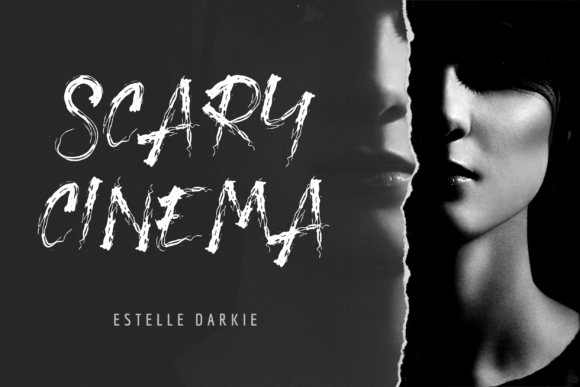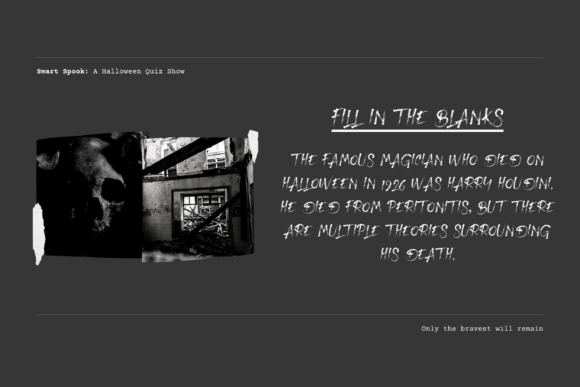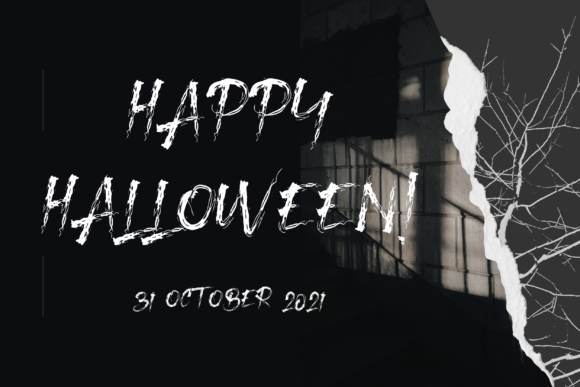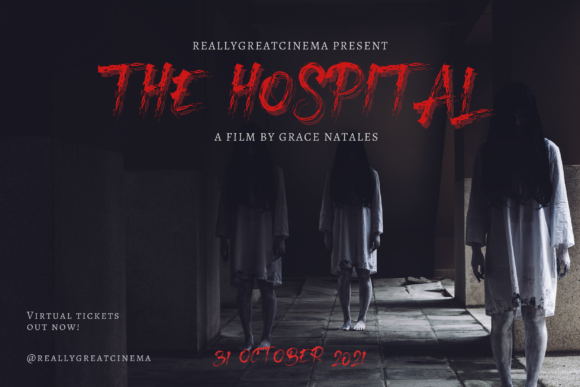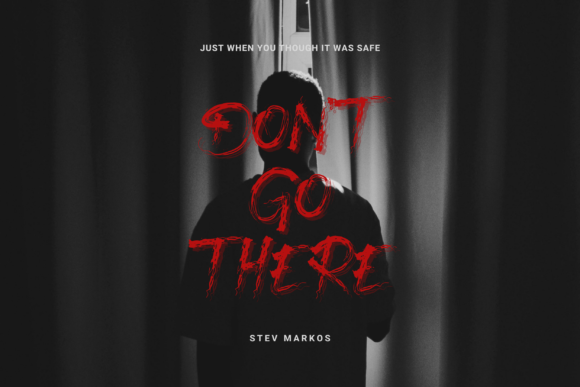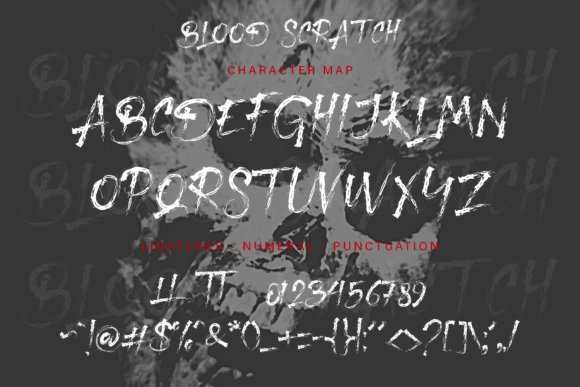
Unleash Your Dark Side with the Blood Scratch Font
As a designer, have you ever found yourself stuck in a creative rut, searching for that perfect font to give your project an eerie edge? Maybe you’re working on a Halloween-themed design, or perhaps you’re crafting a spooky card for a friend. Whatever the case, you’ll want to take a closer look at the Blood Scratch Font.
This creepy and brushed display font is specifically designed for those who dare to be different. With its unique, hand-drawn style, the Blood Scratch Font is perfect for adding a touch of macabre to your next design project. Whether you’re creating a haunted house flyer, a witchy wedding invitation, or a creepy cryptic message, this font is sure to make your design stand out from the crowd.
Blood Scratch Font Key Features
- Unique Characteristics: Blood Scratch Font features a distressed, hand-drawn look with a mix of bold and rough textures, giving it a unique, edgy feel.
Blood Scratch Font Review
When I first laid eyes on the Blood Scratch Font, I was immediately drawn to its unique, hand-scratched aesthetic. The font has a raw, edgy feel to it that’s perfect for designers looking to add a touch of gritty realism to their projects. ✨
One of the things that works particularly well is the font’s versatility. It’s suitable for a wide range of applications, from horror movie posters to punk rock music logos. The font’s flexibility is due in part to its numerous style options, which include different line weights and textures. ✨
However, I do have a few reservations about the Blood Scratch Font. Firstly, the font’s rough texture can make it difficult to read in certain contexts, particularly at small font sizes. Additionally, the font’s design may not be suitable for projects that require a more polished or refined look. ⚠️
Overall, I think the Blood Scratch Font is a solid choice for designers who want to add a touch of grit and realism to their projects. While it may not be suitable for every application, its unique aesthetic and versatility make it a great option for those looking to push the boundaries of traditional typography. ✨
- Unique, hand-scratched aesthetic
- Highly versatile, suitable for a wide range of applications
- Multiple style options, including different line weights and textures
- May be difficult to read at small font sizes
- May not be suitable for projects that require a polished or refined look
For the most effective use of Blood Scratch Font, use it for:
- Horror-themed designs and graphics.
- Grungy, edgy, or distressed text effects.
- Adding a touch of industrial or punk rock aesthetic to your design.
Experiment with different font sizes, colors, and combinations to achieve the desired effect.